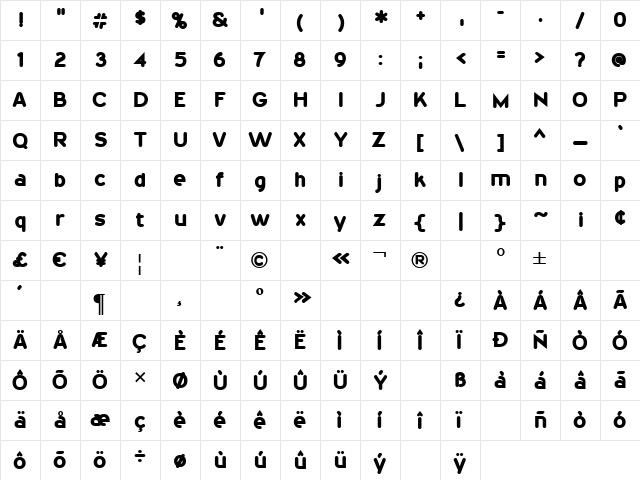
20th Century Font Bold
Design Context for 20th Century Font Typeface
20th Century Font is a composed and adaptable typeface that performs quietly and consistently across a wide range of design contexts. Its bold stroke weight gives it real presence on the page.